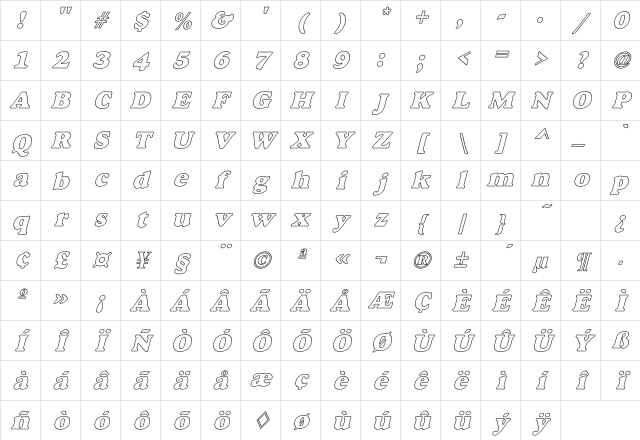
Complete Alfredo Heavy Hollow Italic glyph index. Displaying only characters natively supported by Alfredo Heavy Hollow Italic font.
Alfredo Heavy Hollow is a composed and adaptable typeface that performs quietly and consistently across a wide range of design contexts. The slanted form adds forward momentum and visual energy.
Pro Tip: Use Alfredo Heavy Hollow for emphasis, pull quotes, and subheadings where its slanted energy can add rhythm to the layout.